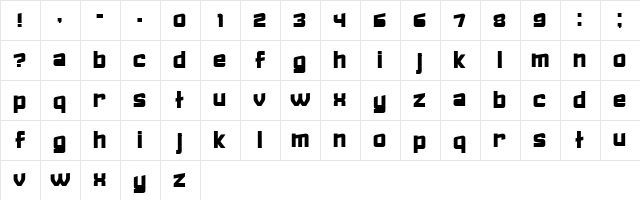
Failed Regular
Design Context for Failed Typeface
Failed is a composed and adaptable typeface that performs quietly and consistently across a wide range of design contexts.